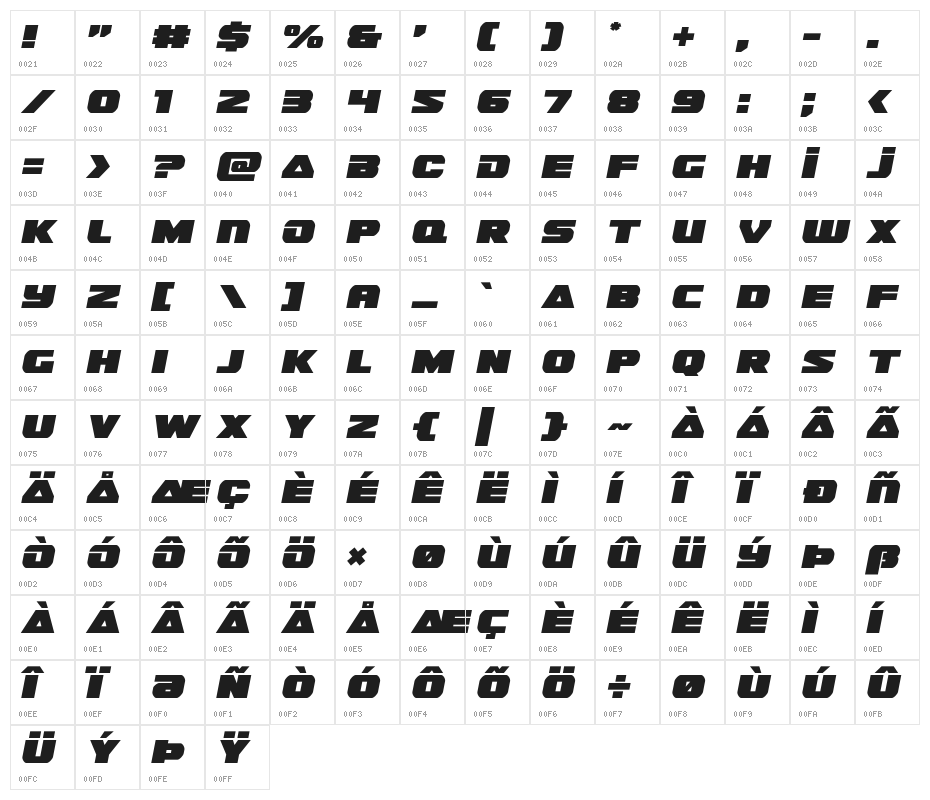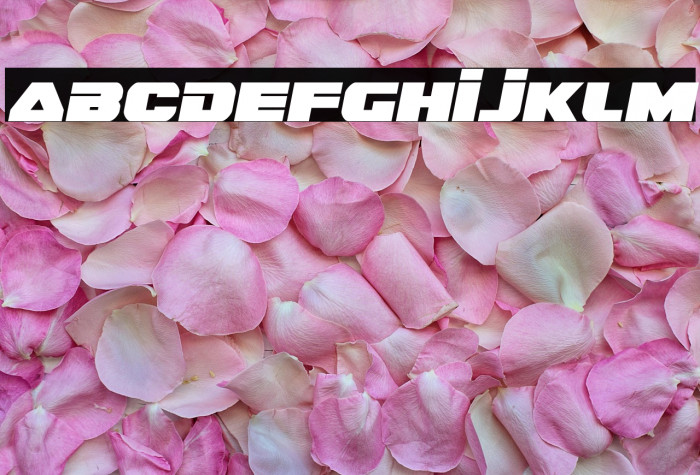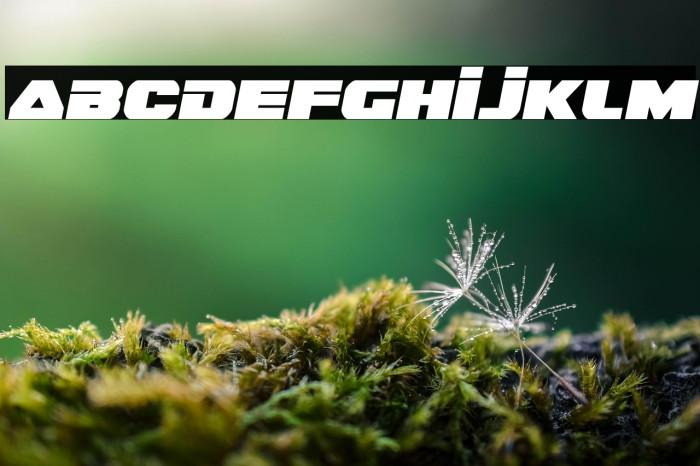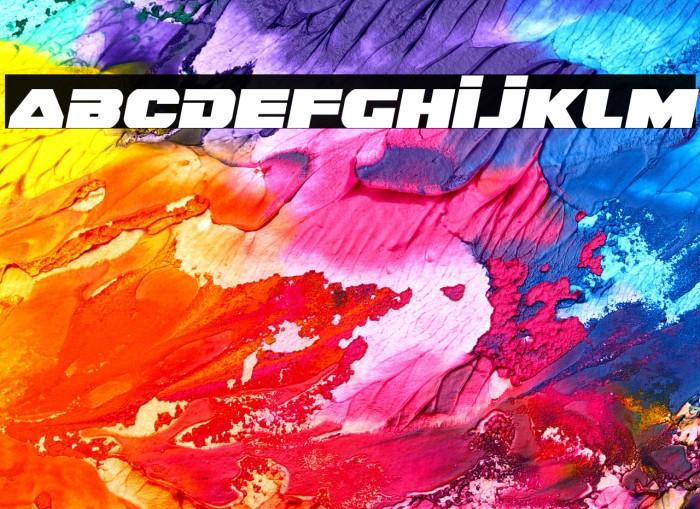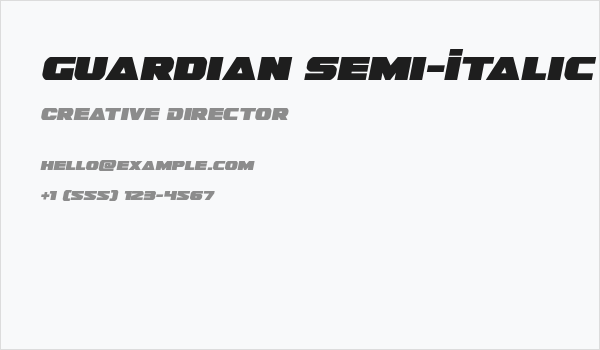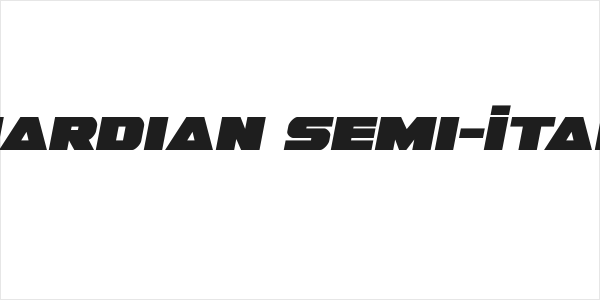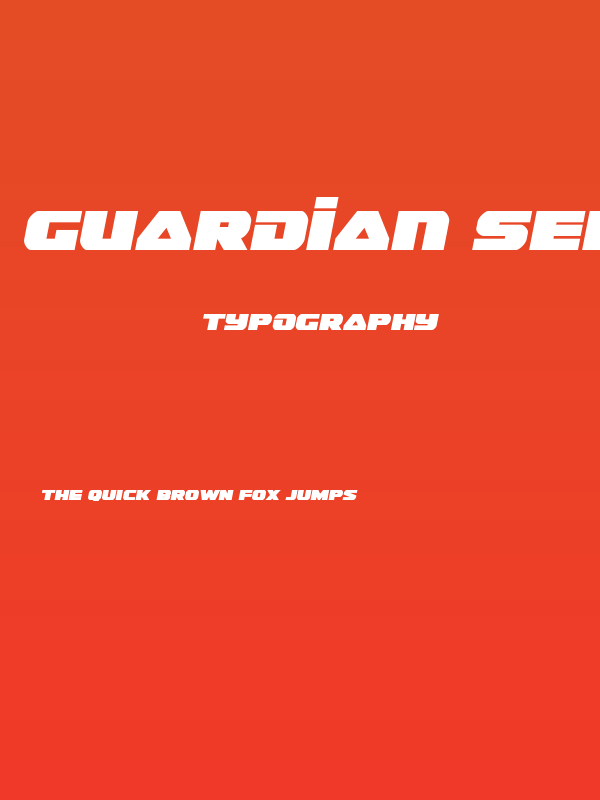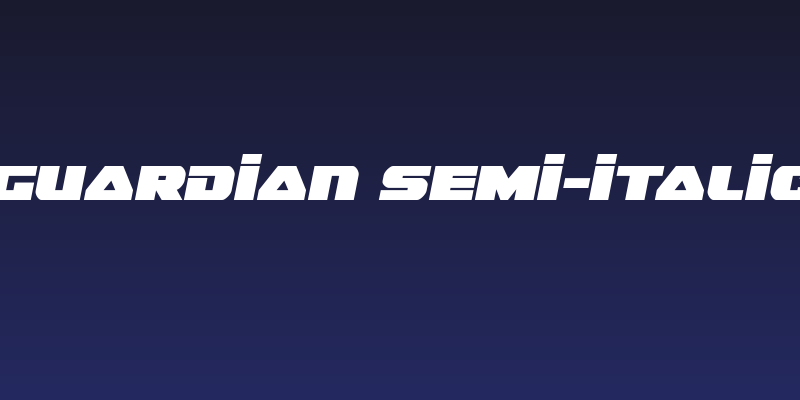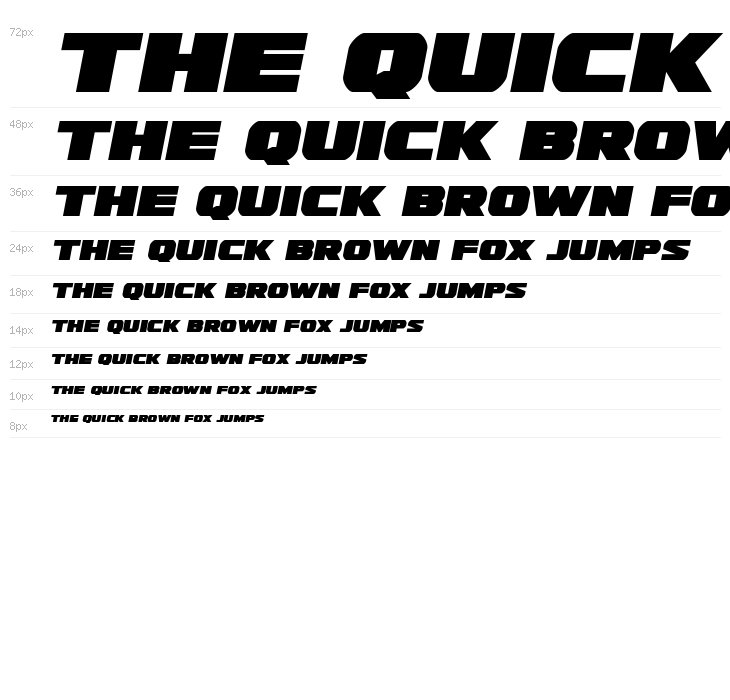
Guardian Semi-Italic Font
Guardian Semi-Italic Description
This font features a bold and dynamic design with a semi-italic slant, giving it a sense of motion and energy. The characters are blocky and robust, with a futuristic and sporty appearance. The uppercase and lowercase letters maintain a consistent style, with angular cuts and a slightly condensed form. The numbers and special characters follow the same design principles, ensuring uniformity across all glyphs. The overall look is modern and impactful, making it suitable for attention-grabbing headlines and branding.
| Proposed Projects | Ideal for sports branding, tech company logos, dynamic posters, and modern advertising campaigns. |